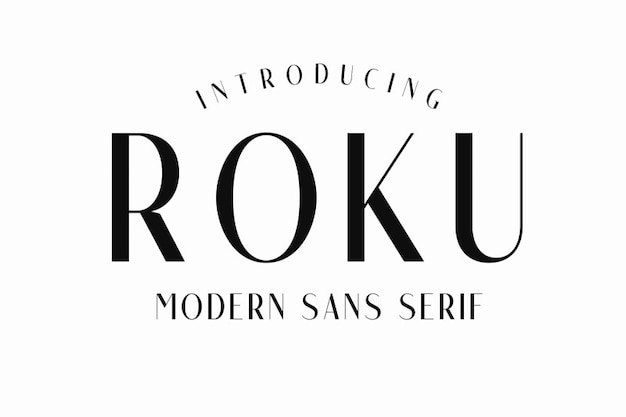
Roku Font
It is the embodiment of modern simplicity with a touch of fancy flair. This font combines clean lines and a sleek aesthetic, making it perfect for contemporary designs. Its subtle sophistication adds a touch of elegance to any project, whether you're crafting a minimalist logo or a stylish invitation. "Roku" is your go-to choice when you want to strike the ideal balance between modern simplicity and a touch of sophistication.